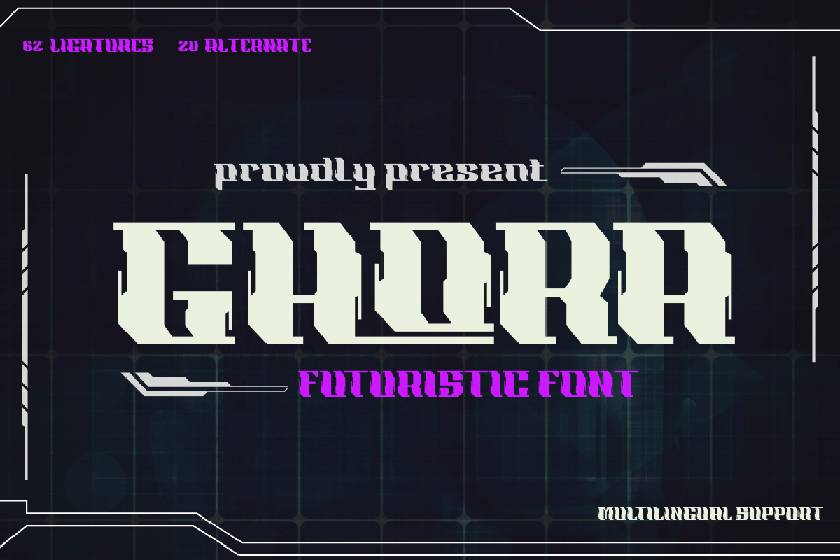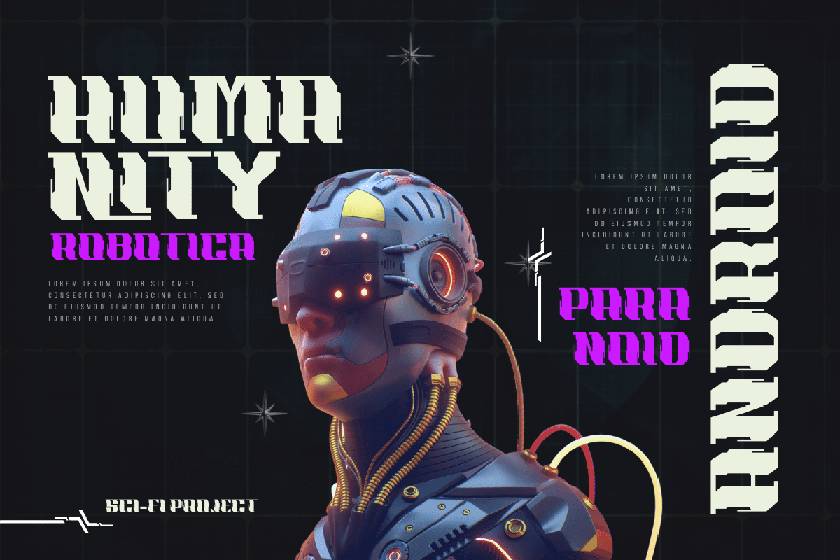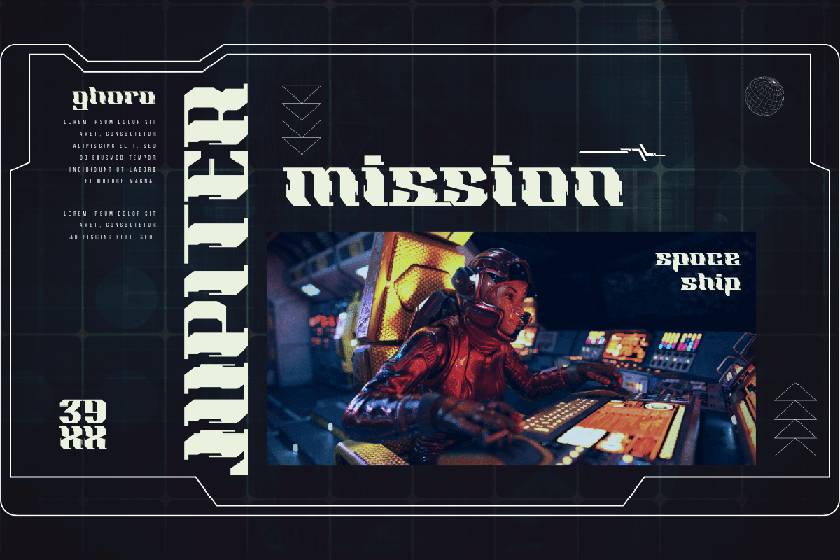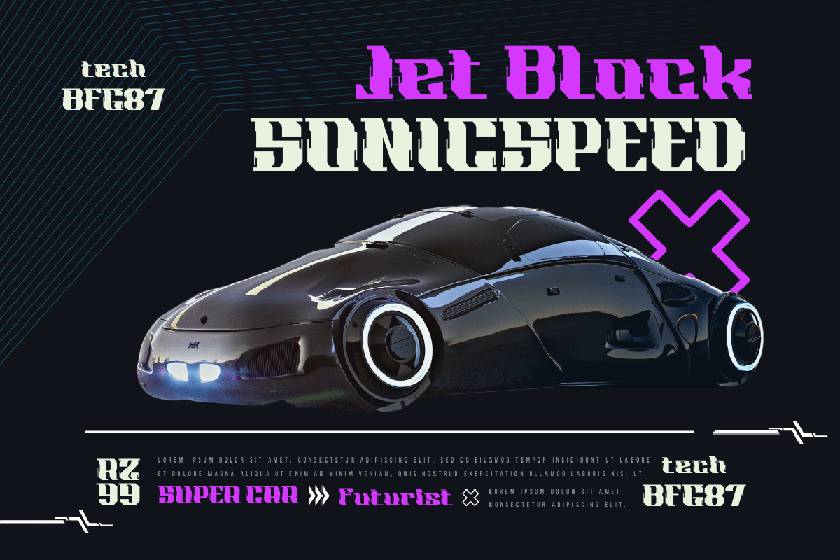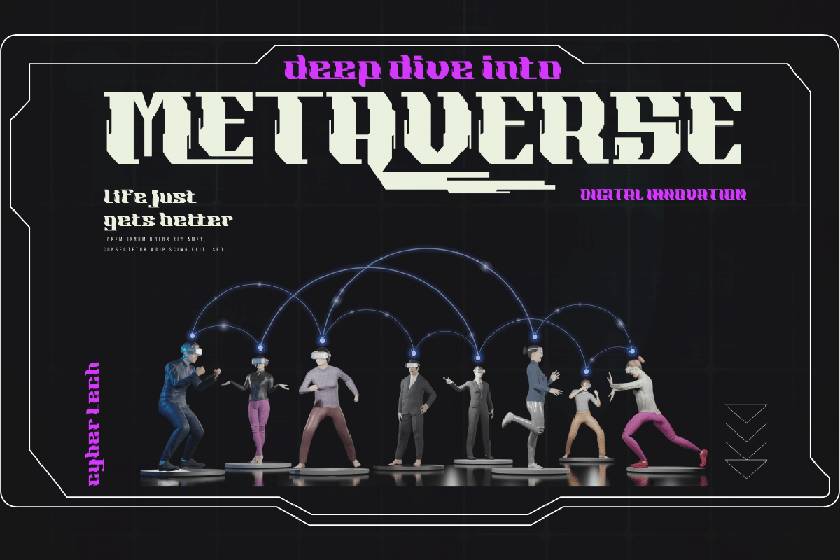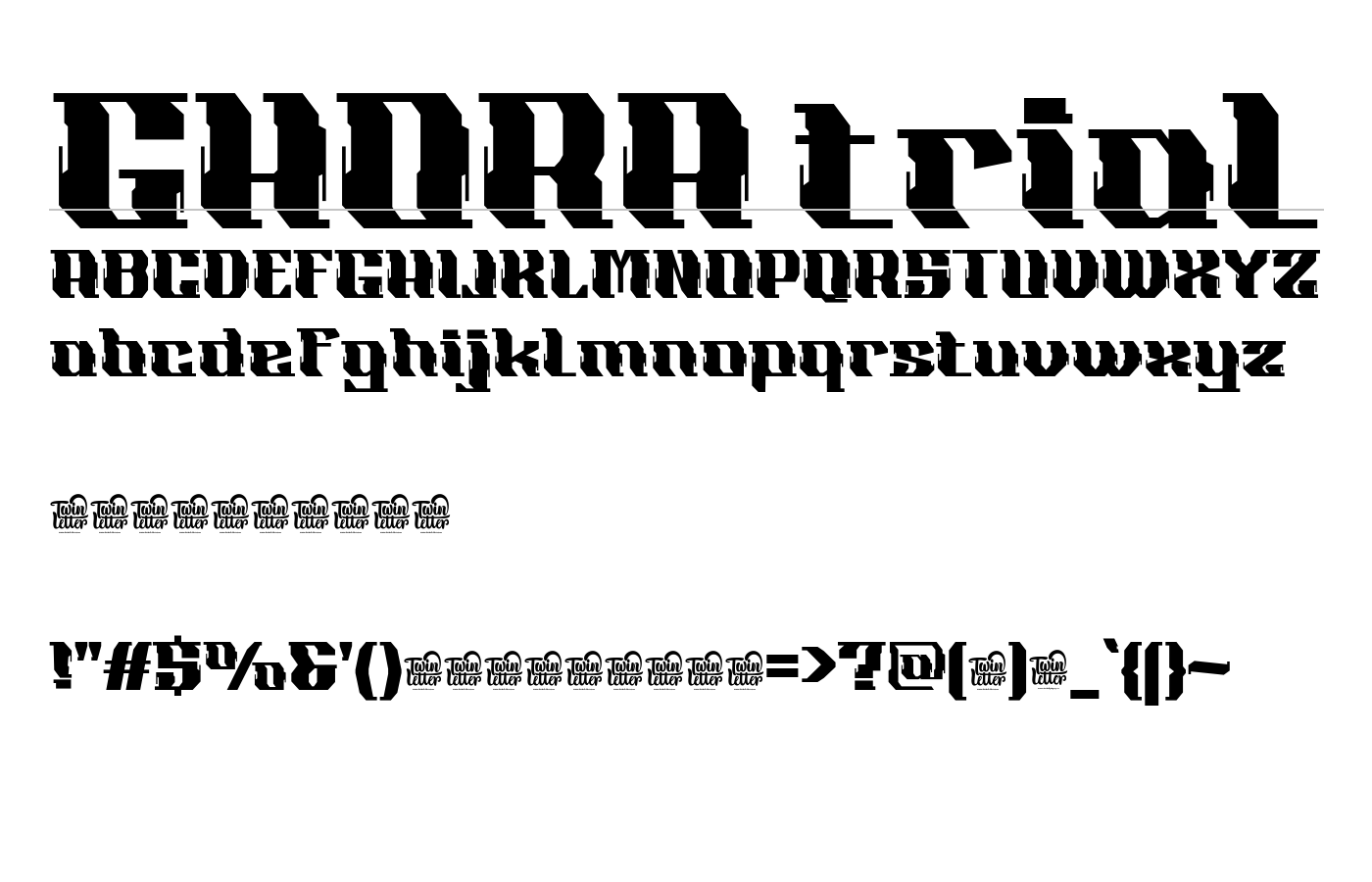
Ghora Font is a bold, condensed slab serif typeface with a strong, industrial feel enhanced by its sharp, blocky serifs and high stroke contrast. Its distinctive uppercase and lowercase letters feature angular cuts that evoke a vintage, rugged style perfect for striking headlines, logos, and branding projects seeking a bold, commanding presence. This font works especially well in contexts where a powerful, retro vibe is desired, such as posters, packaging, and editorial designs that need to grab attention with a tough yet stylish character.
Ghora Font
About Ghora Font